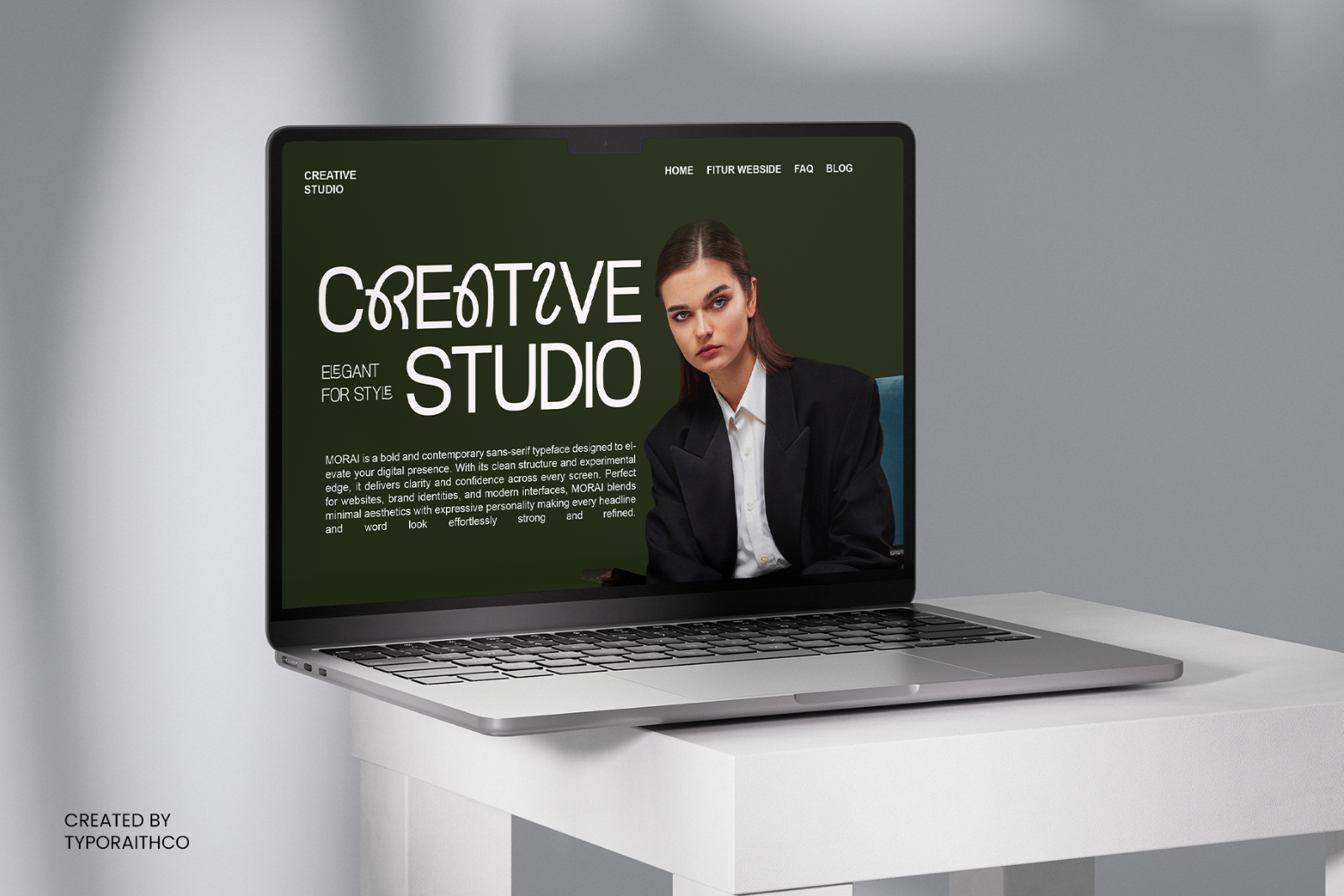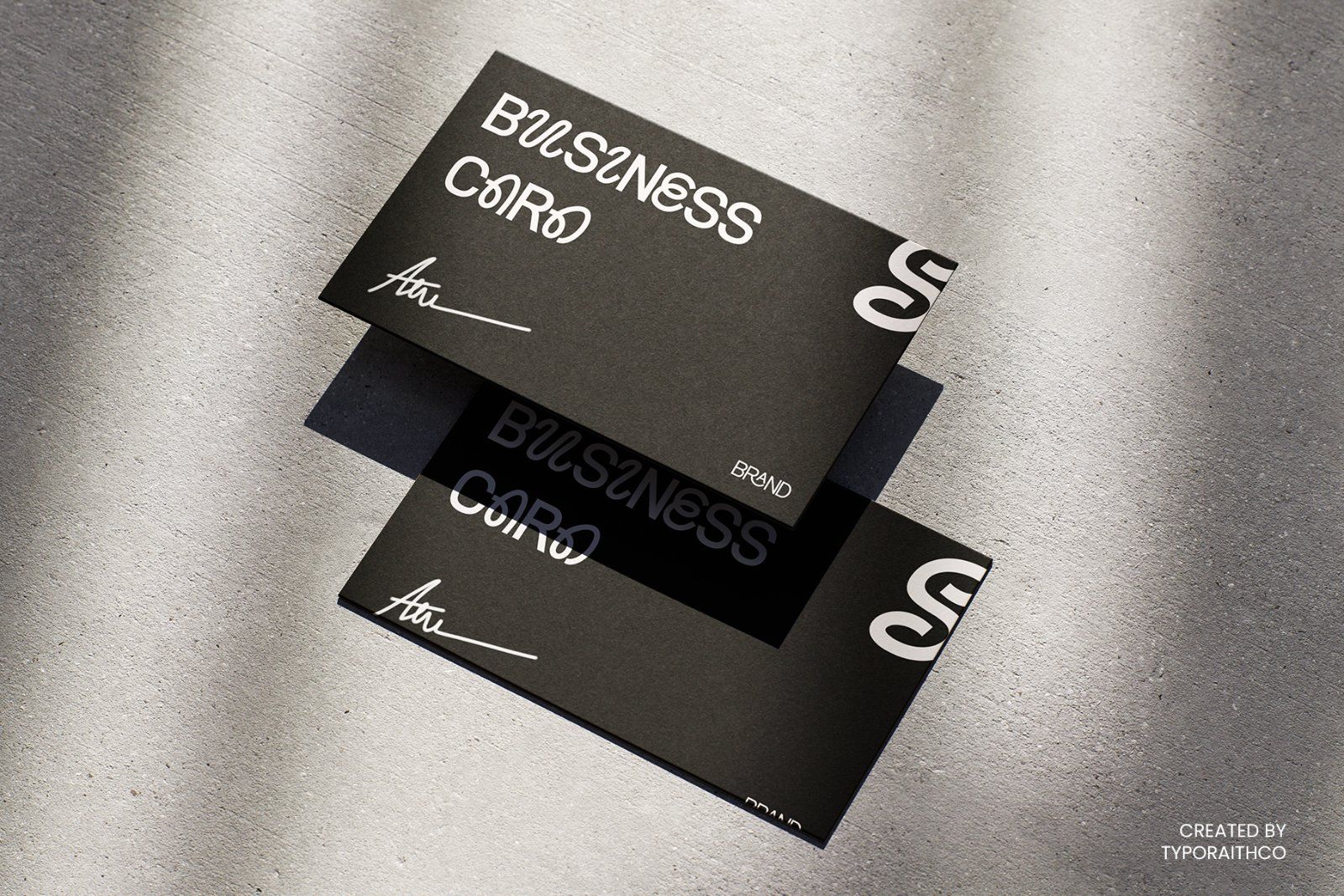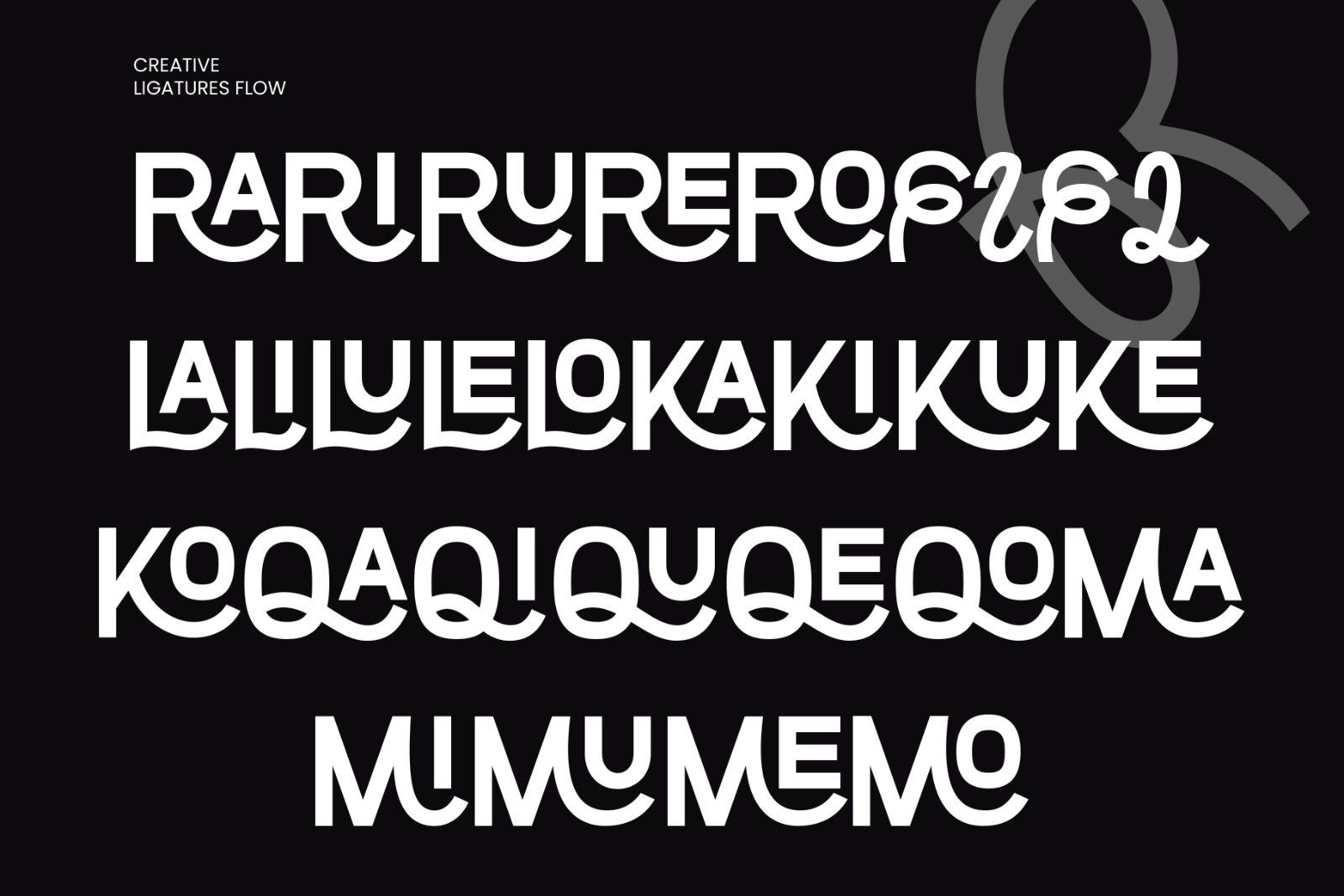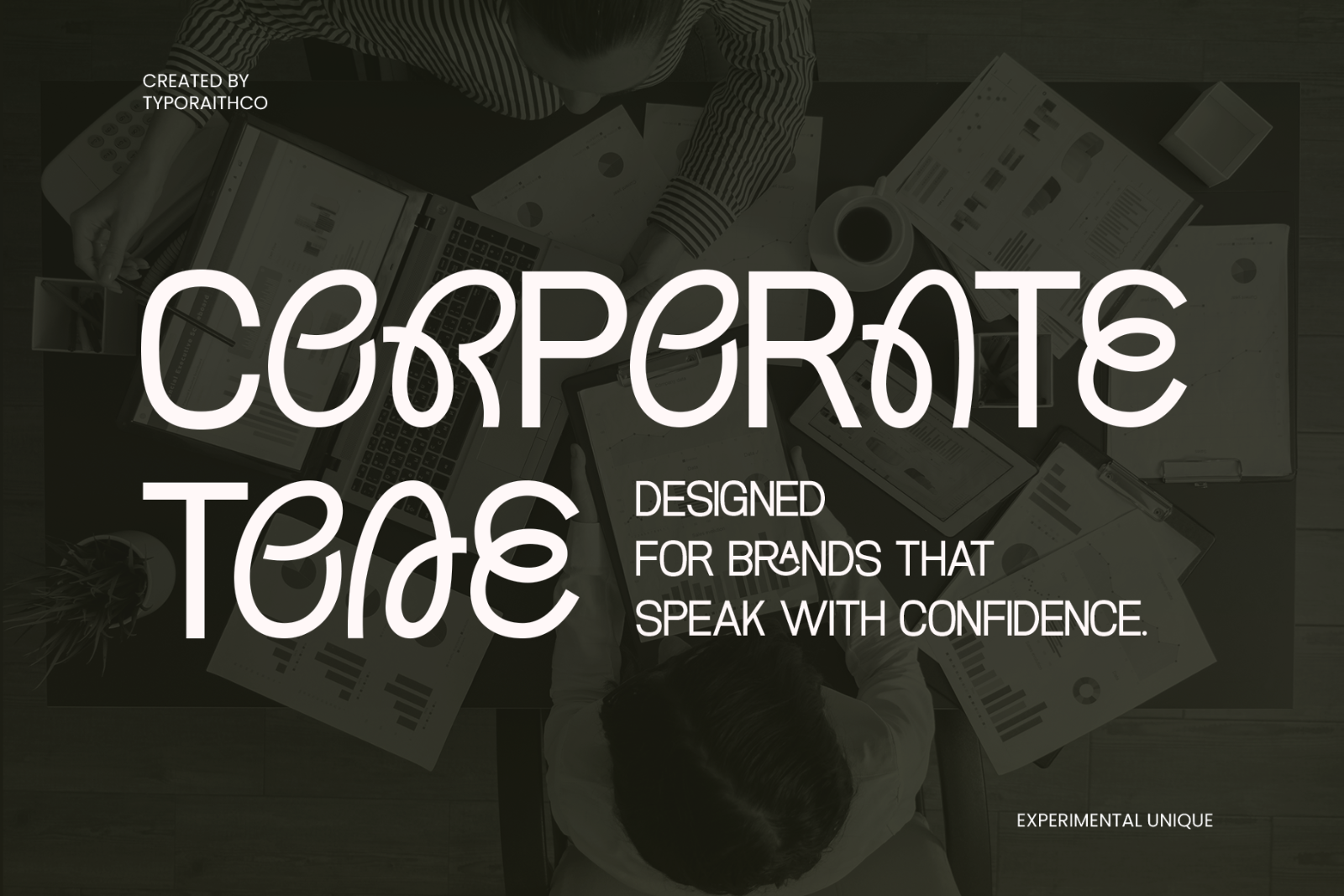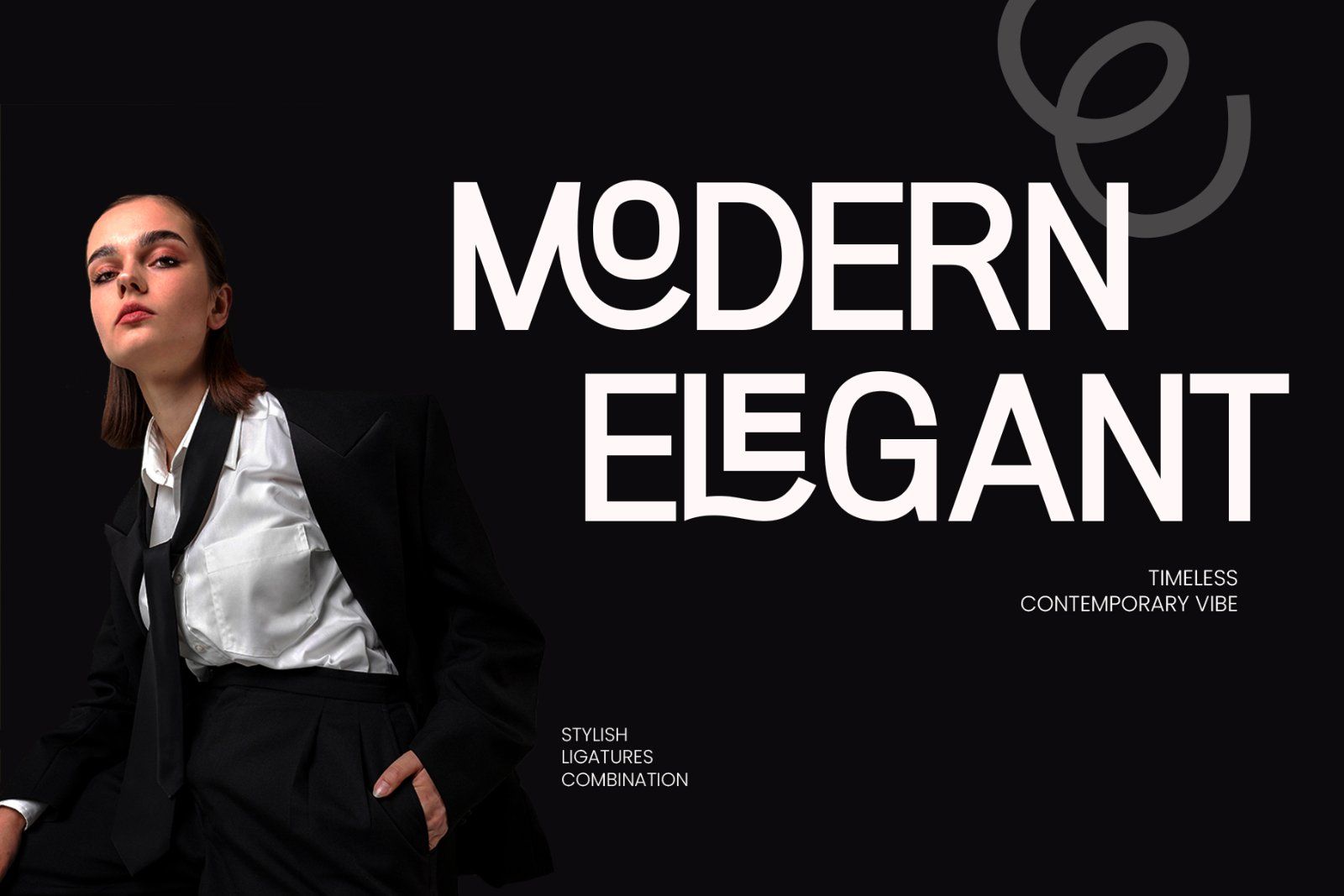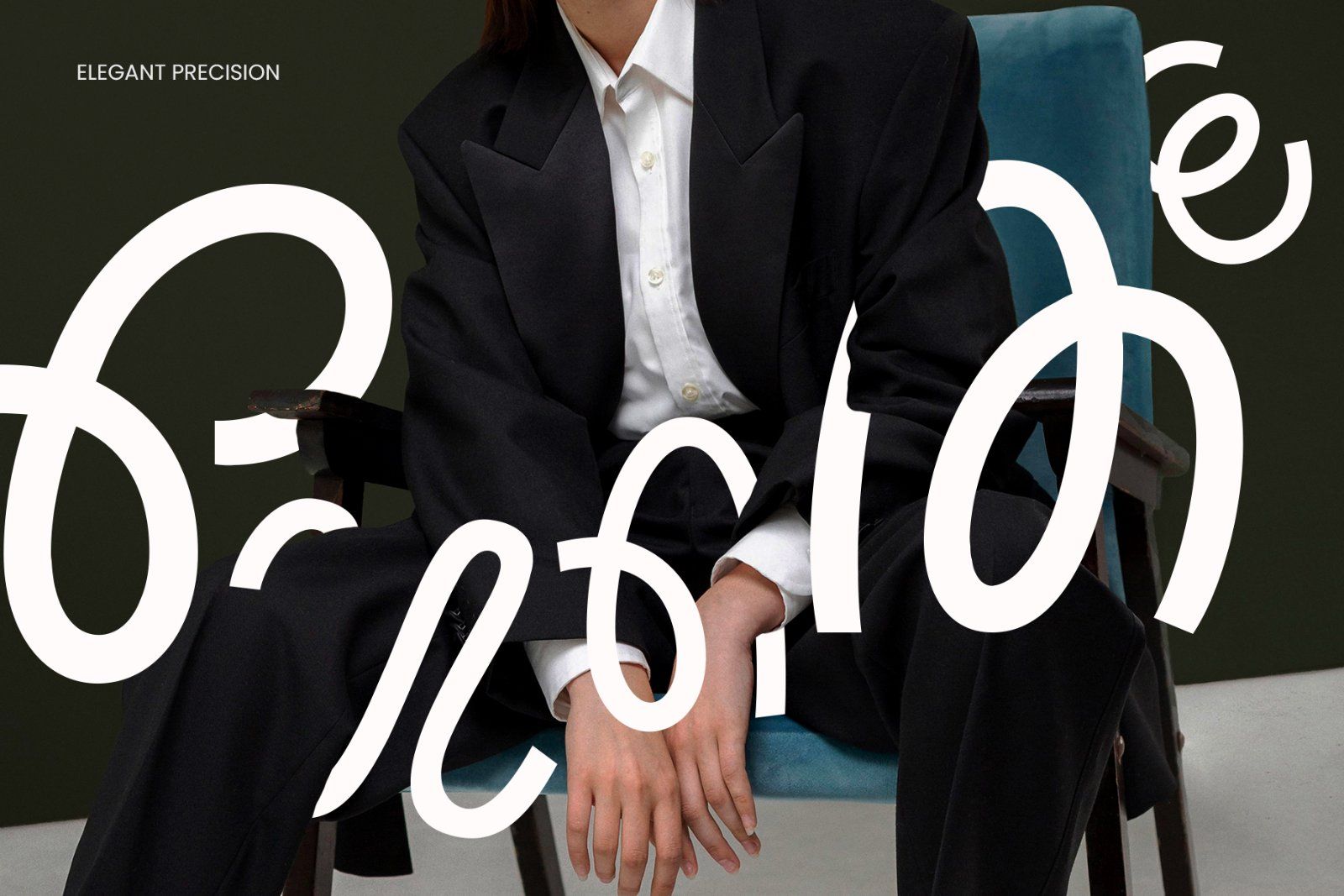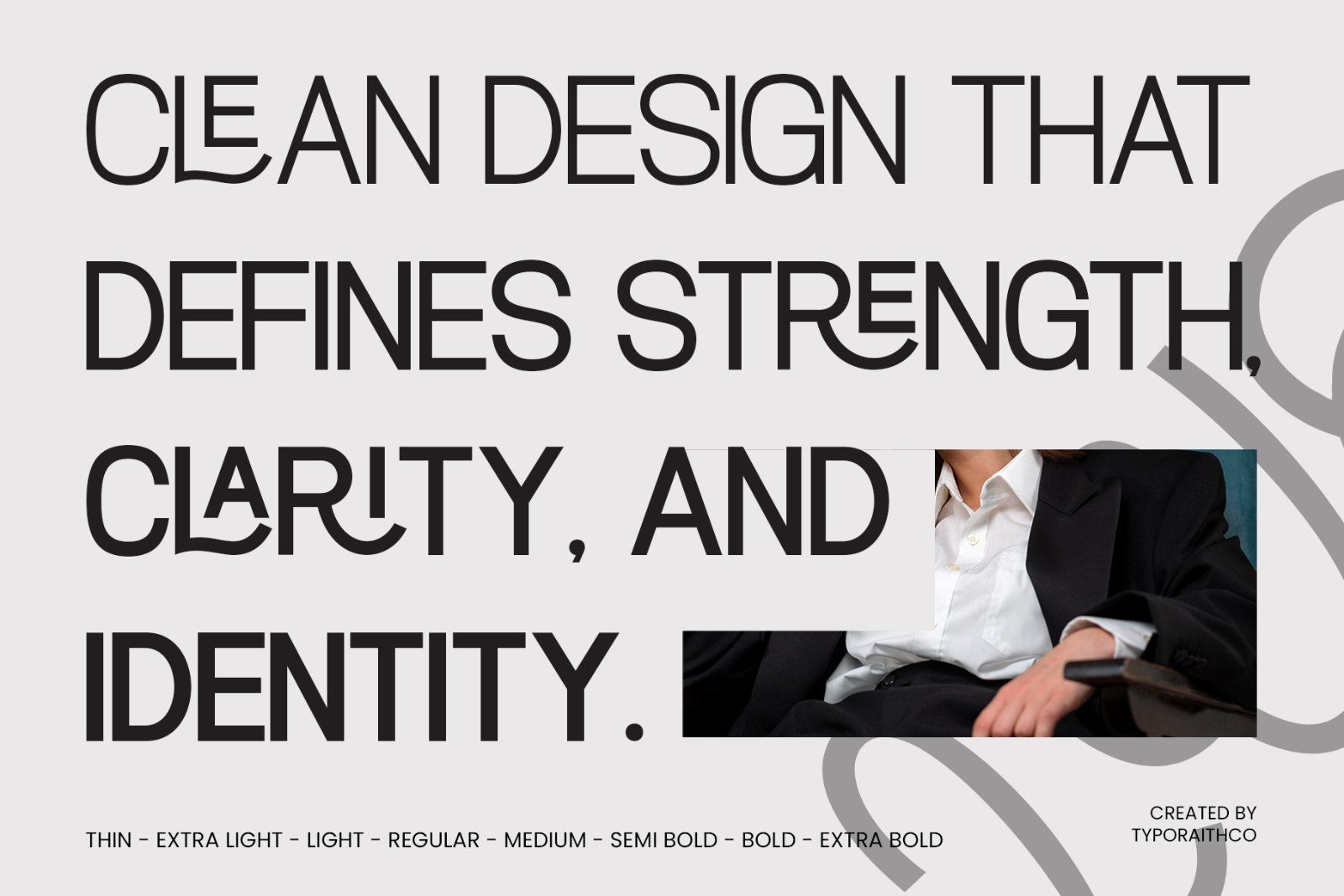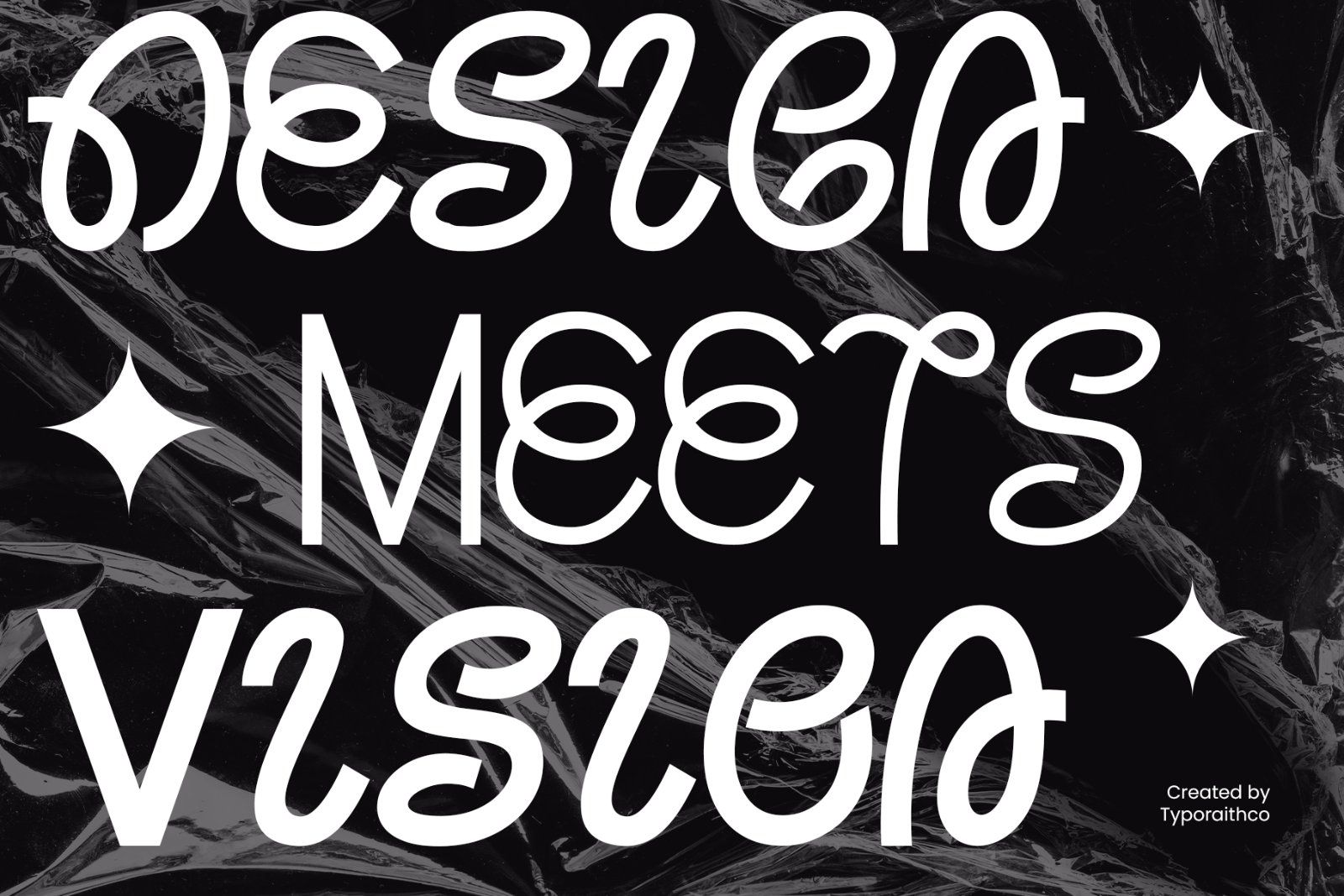
Morain Display is an experimental font family that blends modern geometry with artistic curves, creating a bold and distinctive visual statement. Designed to stand out, this typeface is perfect for branding, editorial design, posters, packaging, and creative headlines.
Each letter in Morain Display carries a unique rhythm — balancing clean lines with playful strokes. The font family offers versatile styles that make it suitable for both minimal and expressive design concepts.
• Morain Display 8 Variable Font Styles
• Uppercase & lowercase letters
• Stylish ligatures
Perfect for: Logos, posters, magazine titles, album covers, branding identity, and typographic art.
Key Features:
• Unique and experimental letterforms
• Strong visual personality
• Great for both print and digital projects